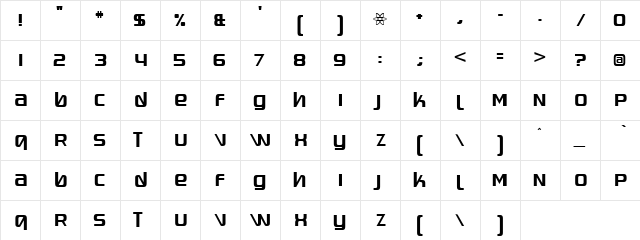
Domiz Pizz Regular
Design Context for Domiz Pizz Typeface
Domiz Pizz is a composed and adaptable typeface that performs quietly and consistently across a wide range of design contexts.